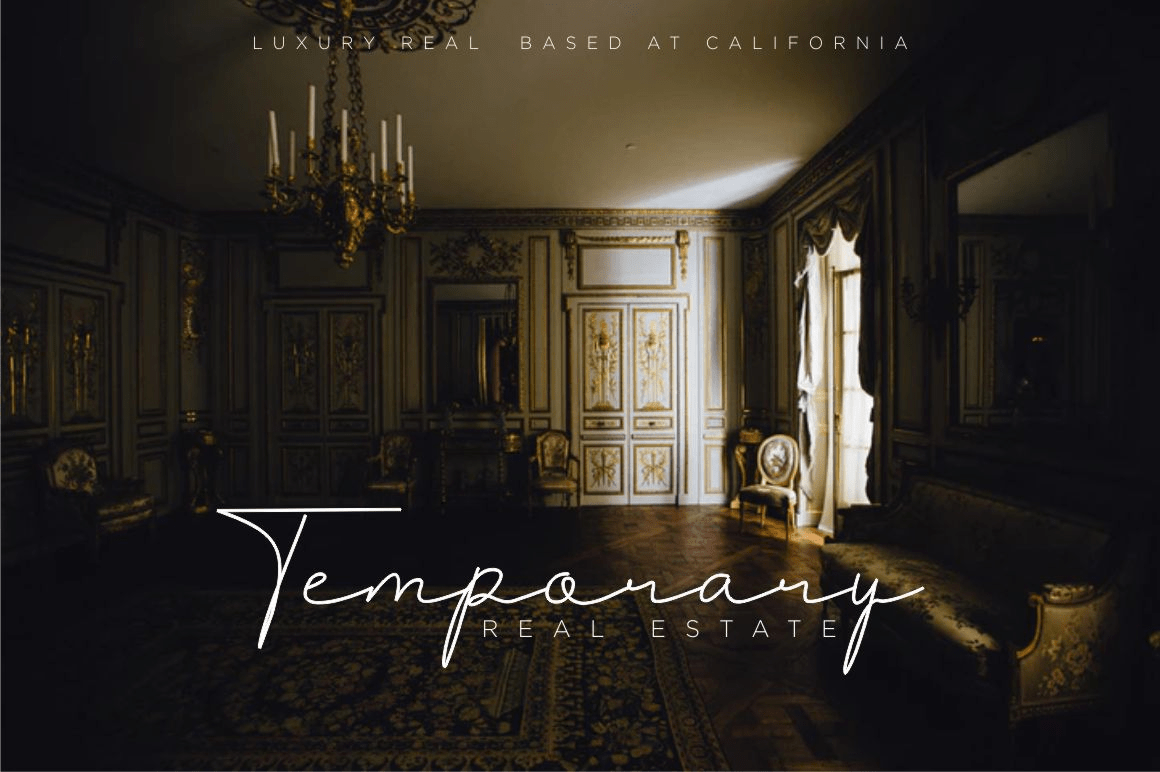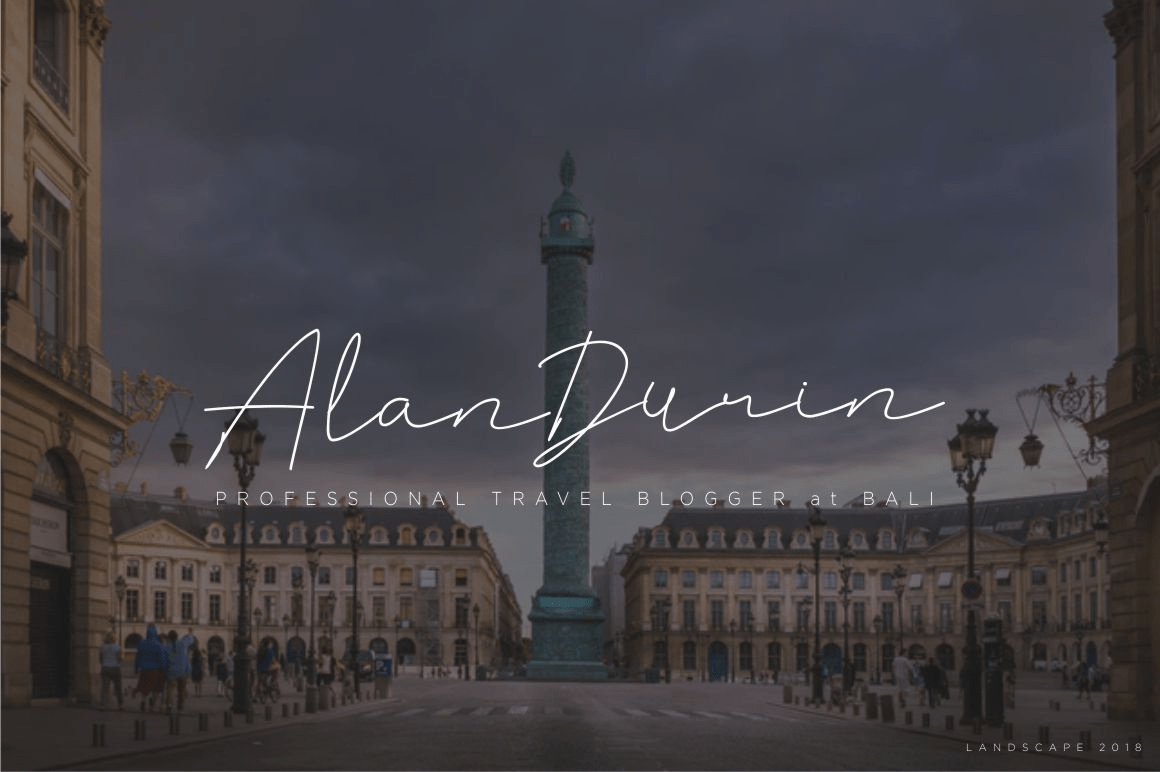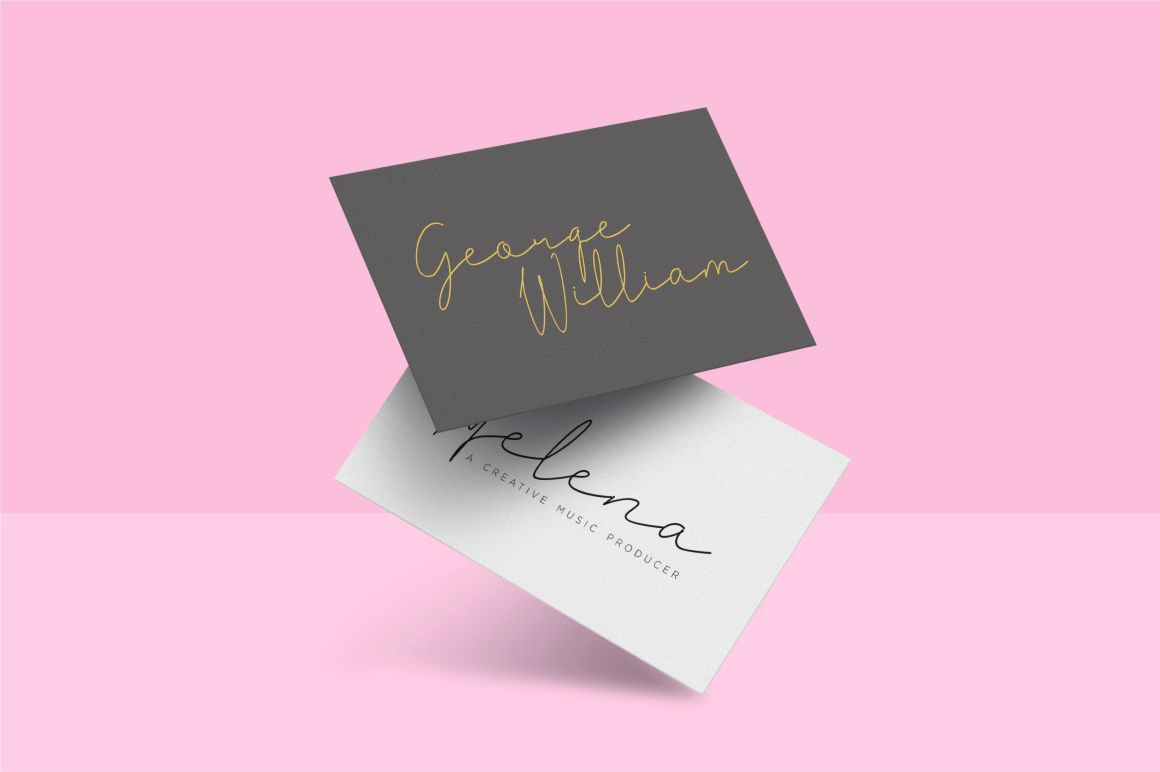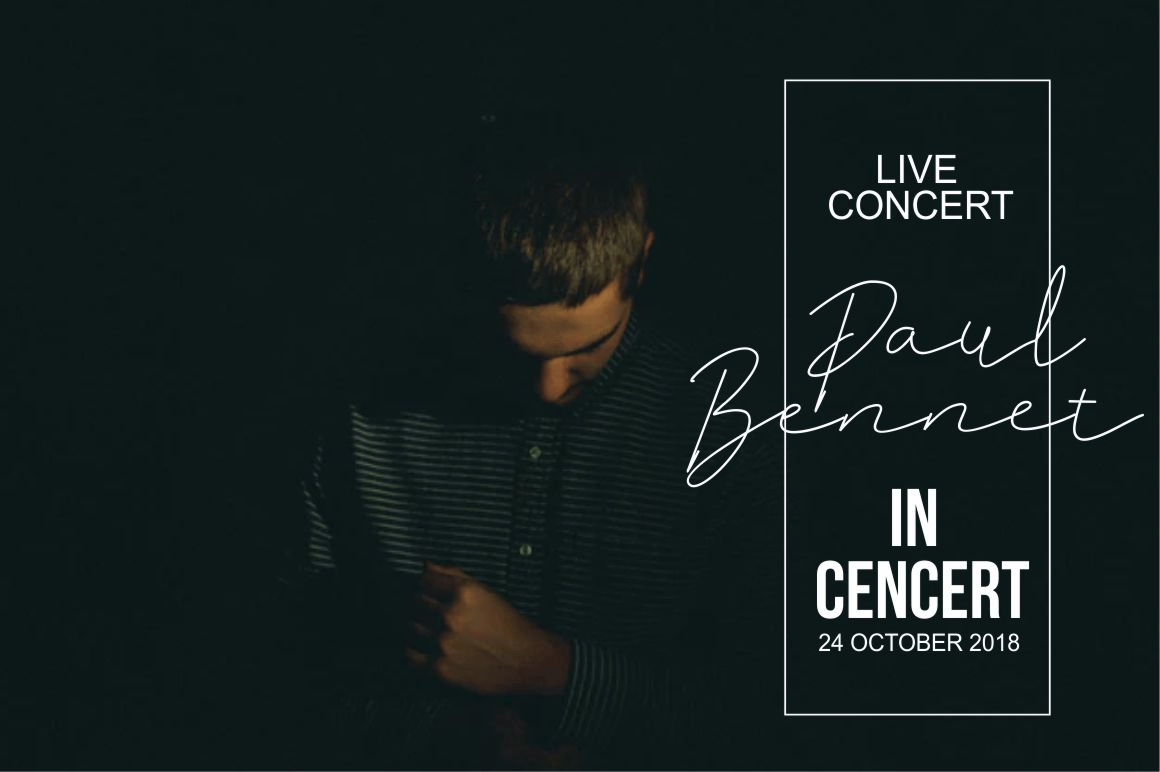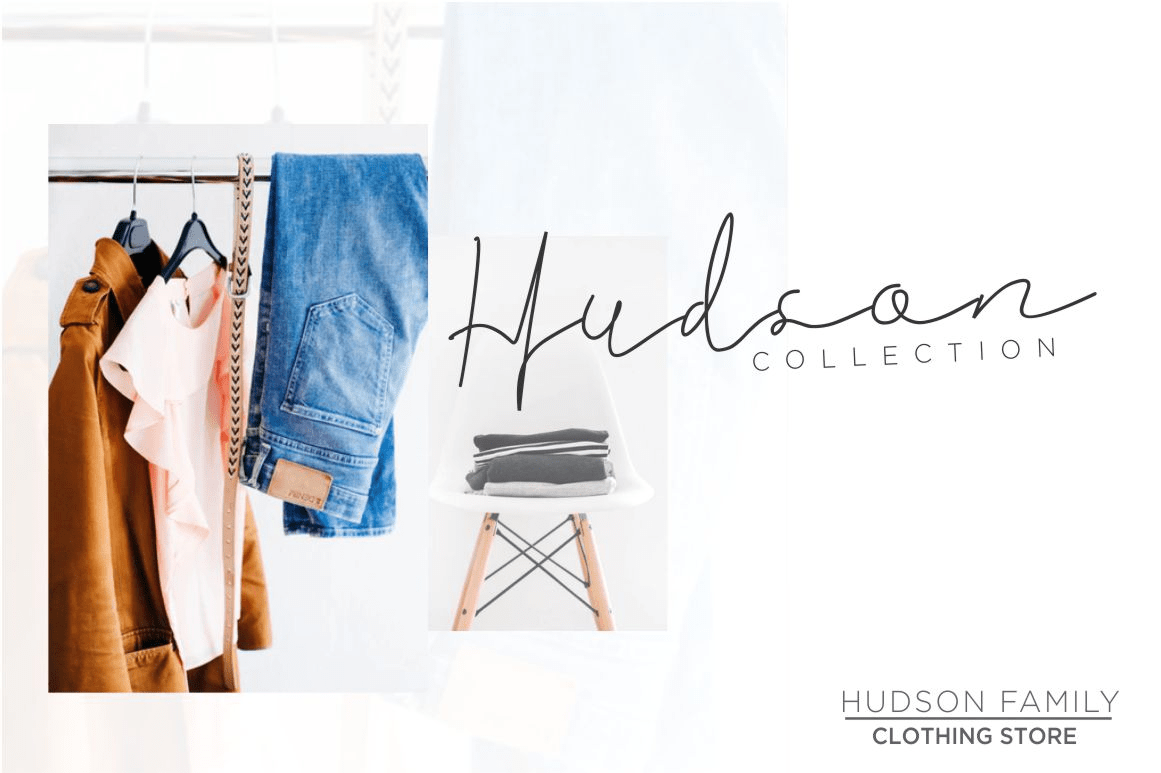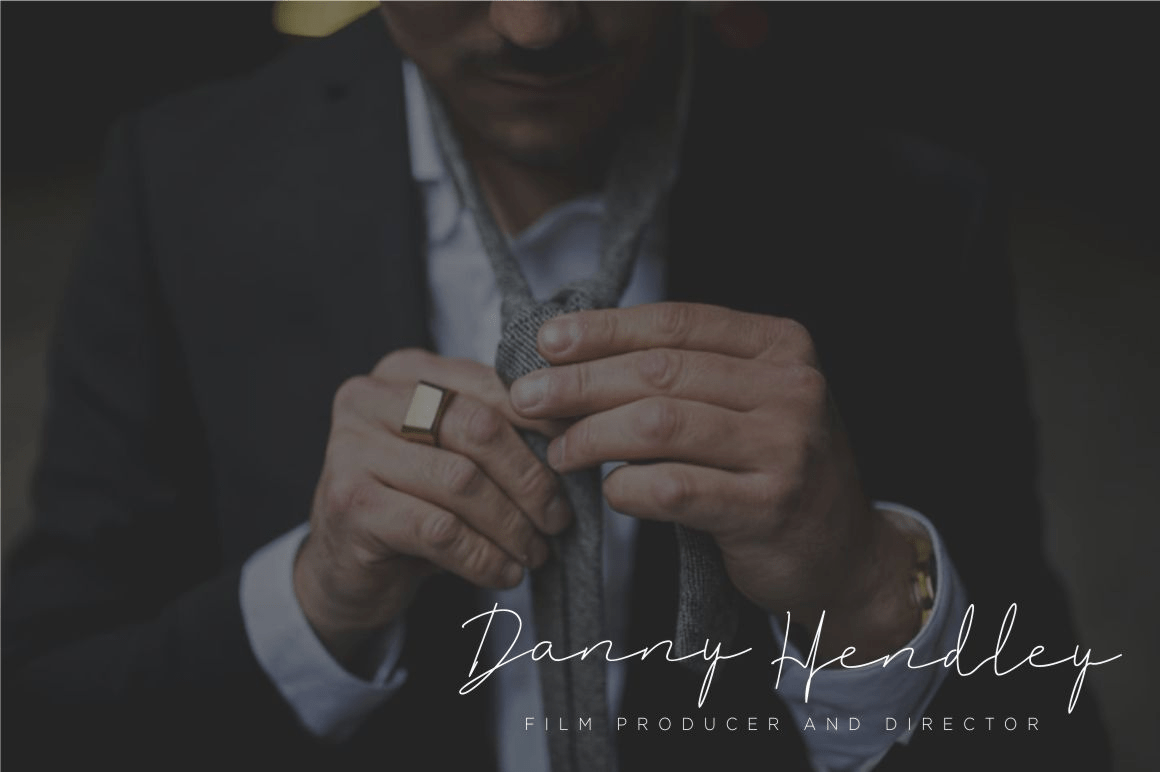
Britney
About Britney
Britney is a signature font. this font perfect for adding some romance and charm to your designs. This script functions most strongly as a display or headline font. suitable for logo, logotype, branding, fashion, label, book cover, t-shirt, instagram…